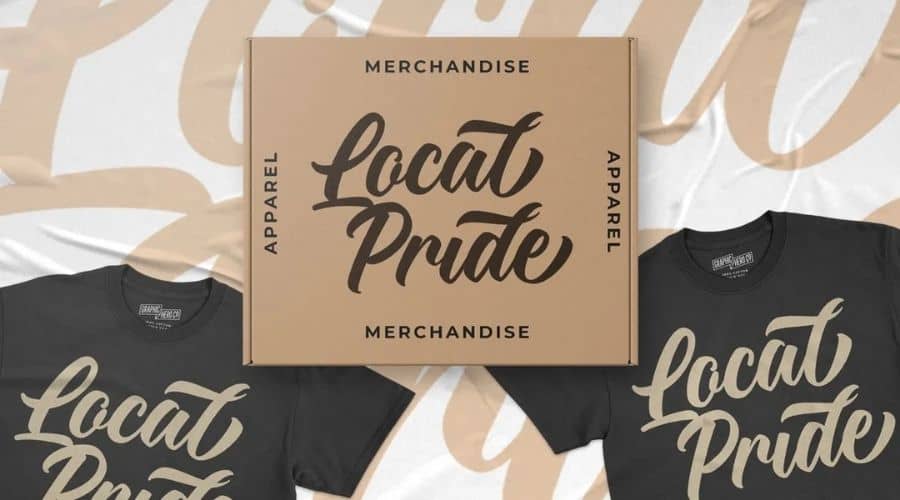
Legends Script Typeface
Legends Script is a hand-lettering style script with a relaxed and realistic feel. It’ll be ideal for logos, branding, t-shirt designs, packaging, and more. With the Font’s 100 stylistic alternatives and ligatures, you may create a plethora of different options based on your imagination. Legends Script is a typeface designed and published by SoftMaker. The Font was uploaded on November 1, 2020. This Script font is ideal for circumstances when a lovely and informal lettering style is required.
As a result, it works well in a range of innovative situations. There are stylistic alternates, ligatures, and positional variants for all uppercase letters and certain lowercase characters. These uppercases and lowercases have a spiky index higher than the creator’s use of excessive bends. As a result, due to its nature, the Font’s is preserved, and it is made milder. Before installing the fonts, you must first extract them from the ZIP or RAR file, then: Windows 10/8/7 Install the Font by right-clicking on it. OS X (Macintosh Operating System): Double-click the font file to install it. Select “Install font” from the drop-down menu. The typeface is available in two different formats, which are OTF and TTF. This Font should be in your font collection.
This is yet another technique to put to use for a few sophisticated jobs. However, most designers are seeking to include a few new and exciting components into their designs with its help. It’s appropriate for stitched fonts. It’s an unregulated font. Accents have been revamped, and new languages have been added to the list of supported languages. Both the spacing and the kerning were increased. The font looks good with almost every colour combinations.
NameLegends Script Typeface
StyleScript
DesignerSoftMaker